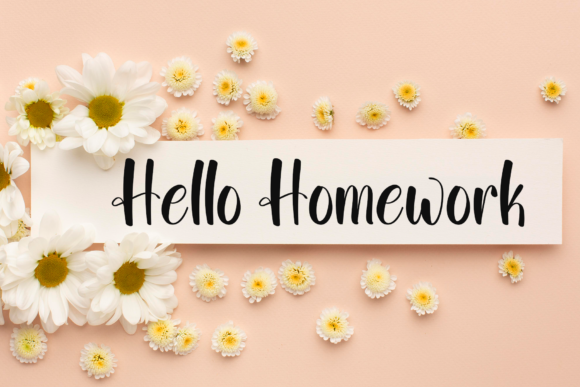
Herbert Font
db-ku.com - Script & Handwritten -- Herbert feels equally charming and elegant. It looks stunning on wedding invitations, thank you cards, quotes, greeting cards, logos, business cards, and every other design which needs a handwritten touch.